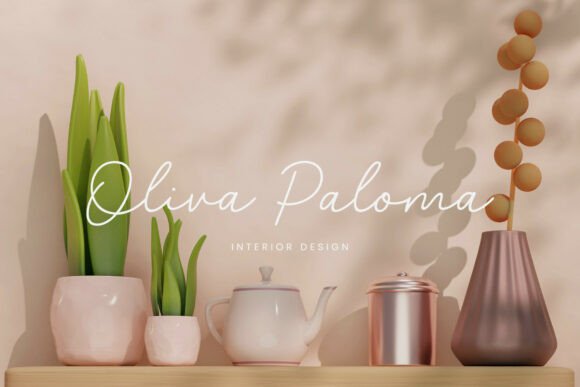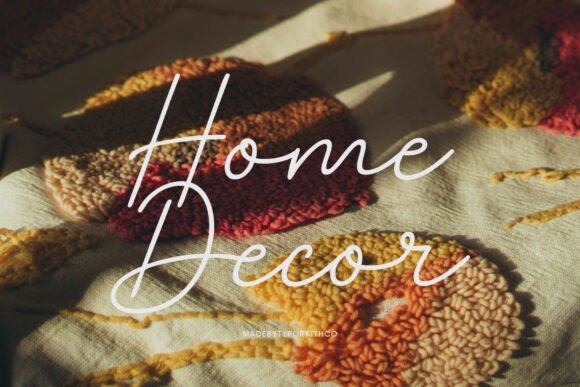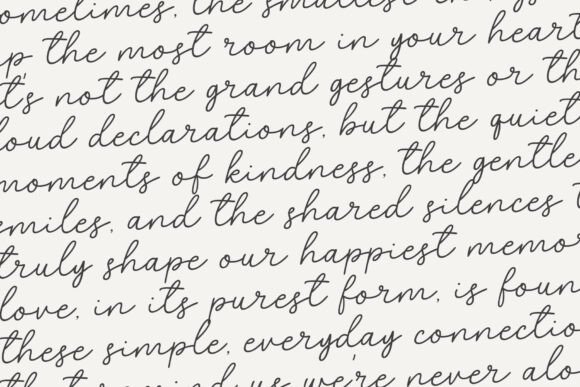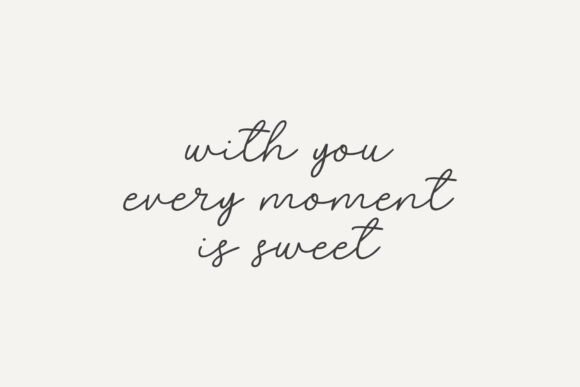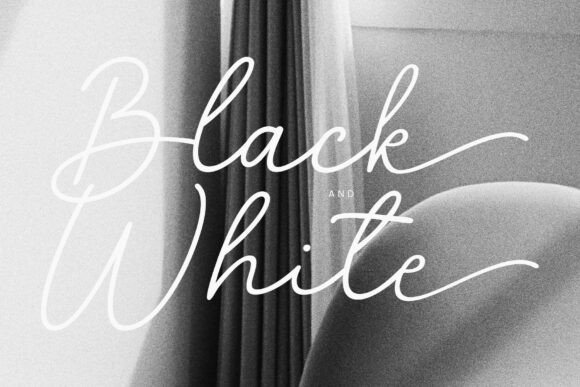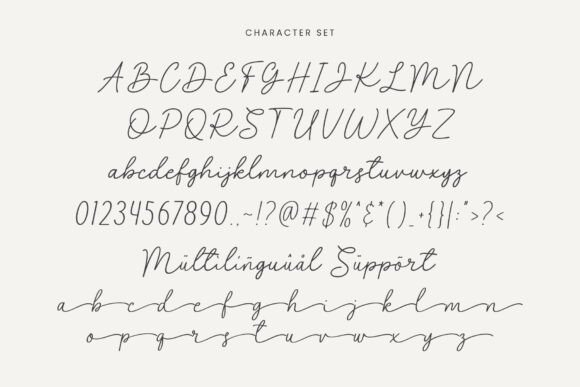
Introducing Come Here Font: The Ultimate Monoline Script for Elegant Designs
Are you looking for a font that can add a touch of warmth and personality to your design projects? Look no further than Come Here, a charming monoline script font that’s perfect for creating elegant and stylish designs. With its smooth, flowing lines and sweet handwritten feel, Come Here is ideal for a wide range of applications, from invitations and logos to quotes and greeting cards.
The Characteristics of Come Here Font
Come Here is a monoline script font, which means that it features smooth, continuous lines that are perfect for creating elegant and cursive writing. The font has a sweet, handwritten feel that’s both charming and sophisticated, making it perfect for designs that require a personal touch. The lines are smooth and flowing, with a consistent thickness that gives the font a sense of harmony and balance.
What Makes Come Here Font So Versatile?
One of the things that sets Come Here apart from other script fonts is its versatility. The font can be used for a wide range of applications, from romantic designs like wedding invitations and Valentine’s Day cards to more elegant designs like logos and quotes. The font’s smooth lines and sweet feel make it perfect for creating designs that require a touch of sophistication and style.
Perfect for Invitations and Greeting Cards
Come Here is an ideal font for creating invitations and greeting cards. The font’s smooth lines and elegant feel make it perfect for formal and informal events, from weddings and baby showers to birthday parties and holiday gatherings. The font’s sweet handwritten feel also makes it perfect for creating personalized and heartfelt messages.
Great for Logos and Branding
Come Here is also a great font for logos and branding. The font’s elegant lines and sophisticated feel make it perfect for creating professional and stylish logos that will help your business stand out. The font’s versatility also makes it perfect for creating a wide range of branding materials, from business cards and letterheads to packaging and advertising.
Adding a Touch of Elegance to Your Designs
Come Here is a font that can add a touch of elegance to any design. The font’s smooth lines and sweet feel make it perfect for creating designs that require a sense of sophistication and style. Whether you’re creating a romantic design or just want to add a touch of elegance to your project, Come Here is the perfect font for the job.
Why Choose Come Here Font?
So why choose Come Here font for your design projects? Here are just a few reasons:
- Unique and charming design: Come Here has a unique and charming design that’s sure to stand out from the crowd.
- Versatile: The font can be used for a wide range of applications, from invitations and logos to quotes and greeting cards.
- Elegant and sophisticated: Come Here has an elegant and sophisticated feel that’s perfect for creating stylish and professional designs.
- Easy to read: The font is easy to read, even at small sizes, making it perfect for body text and captions.
Come Here is a charming monoline script font that’s perfect for adding a touch of warmth and personality to your design projects. With its smooth, flowing lines and sweet handwritten feel, it’s ideal for a wide range of applications, from invitations and logos to quotes and greeting cards. Whether you’re crafting something romantic or just want to add a touch of elegance to your project, Come Here is the perfect font for the job.